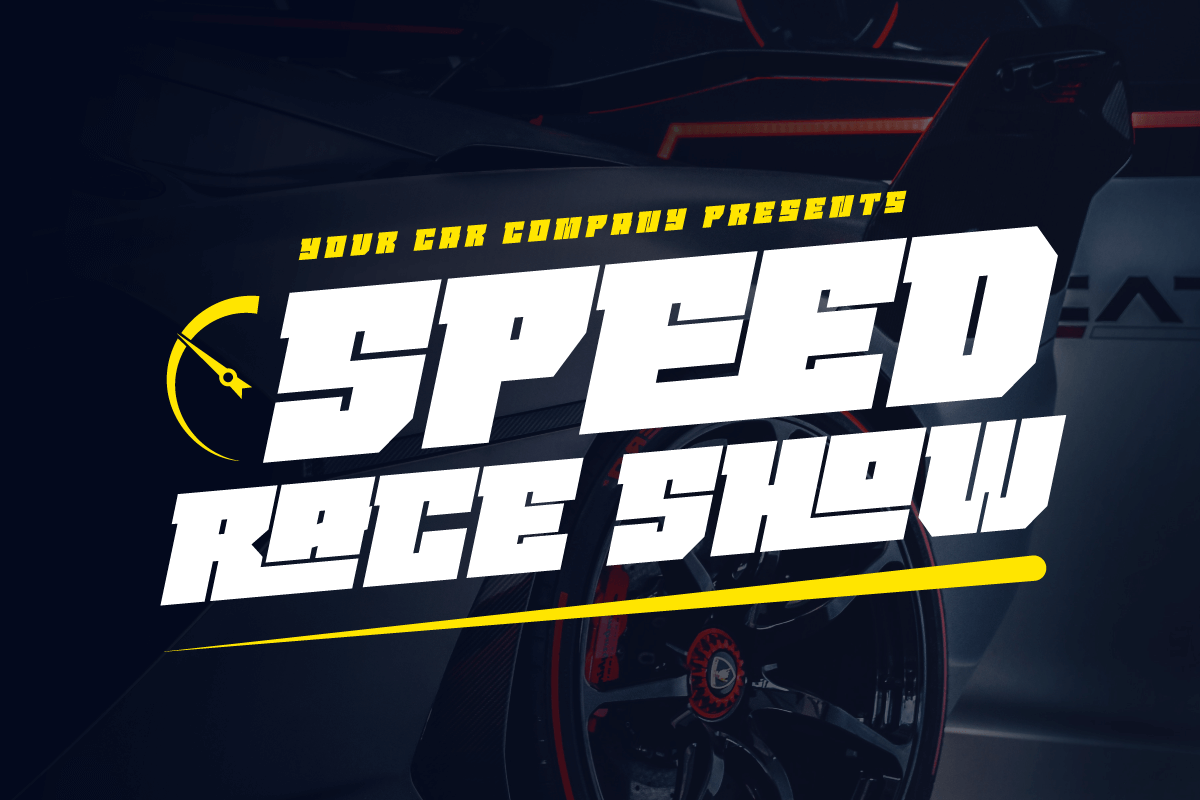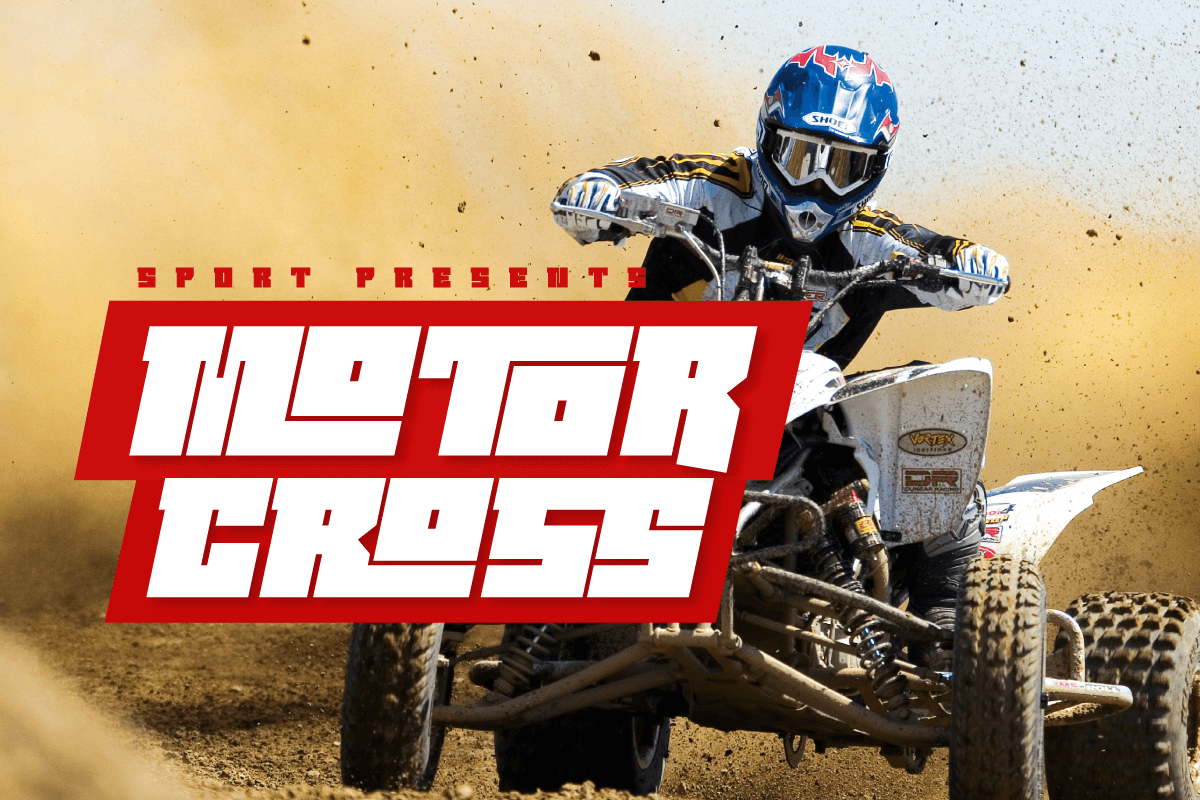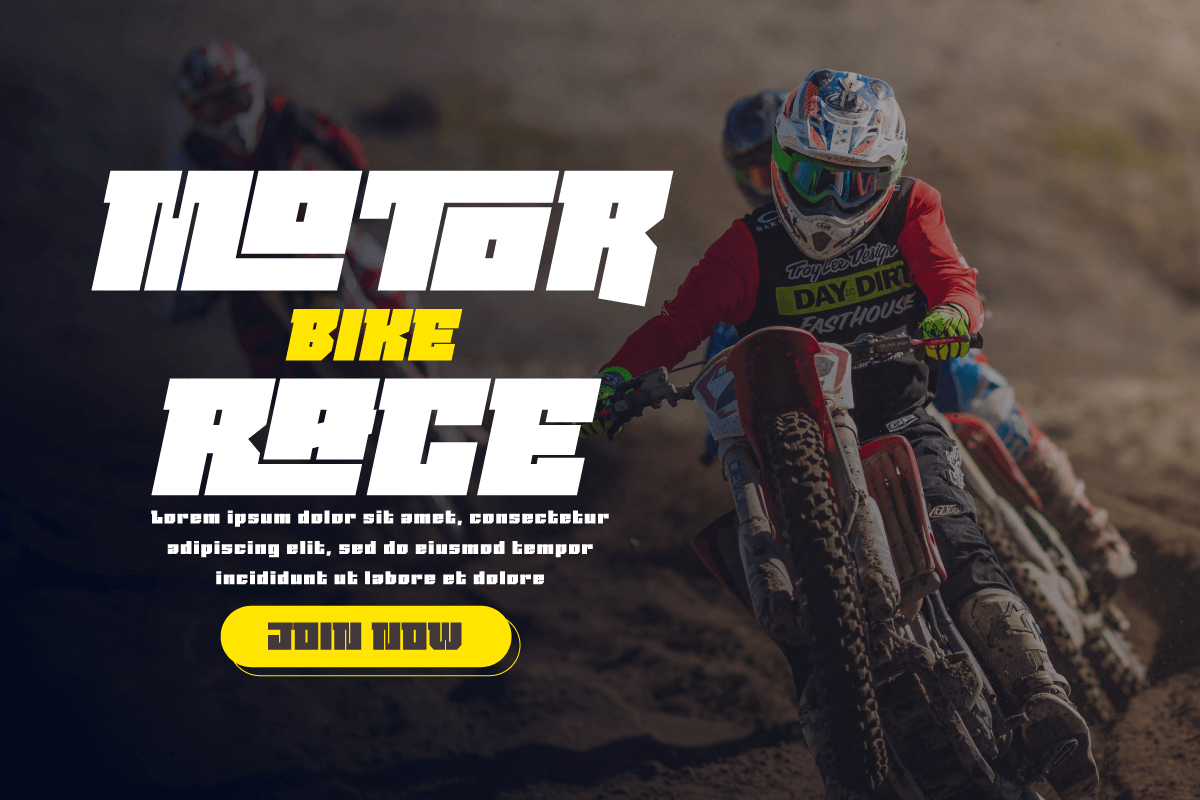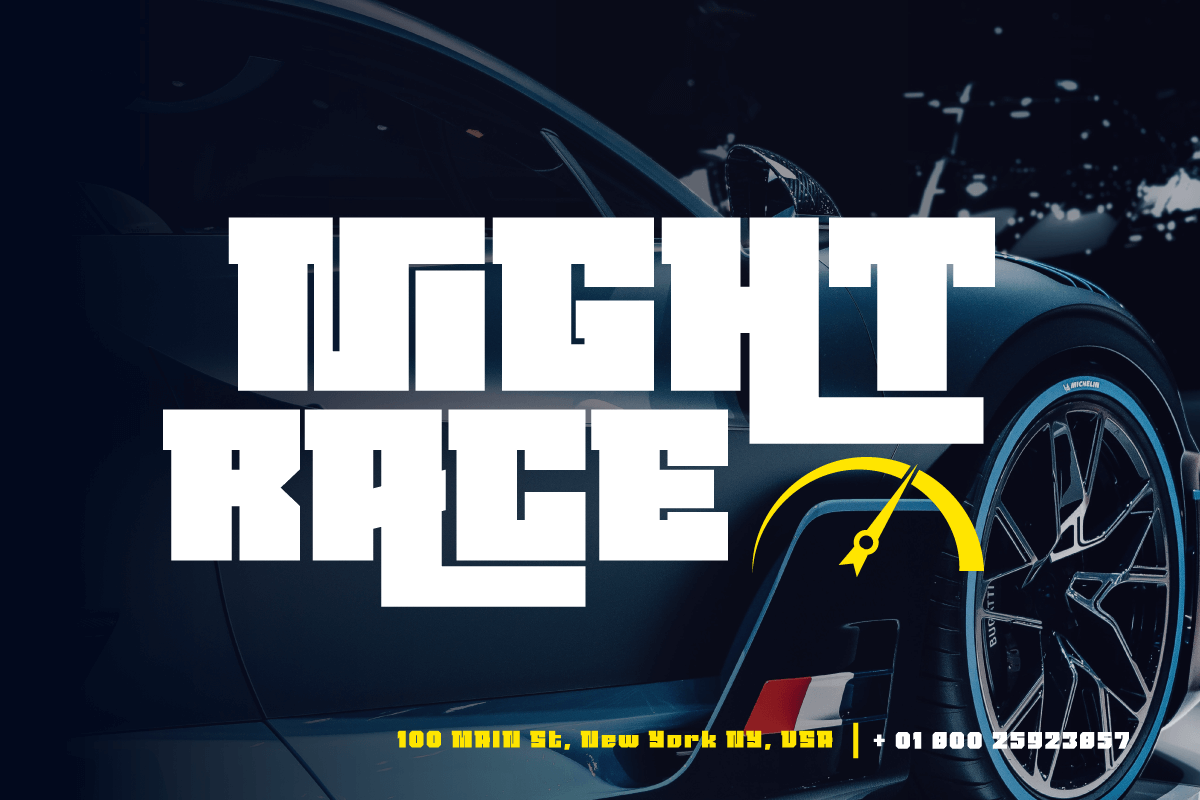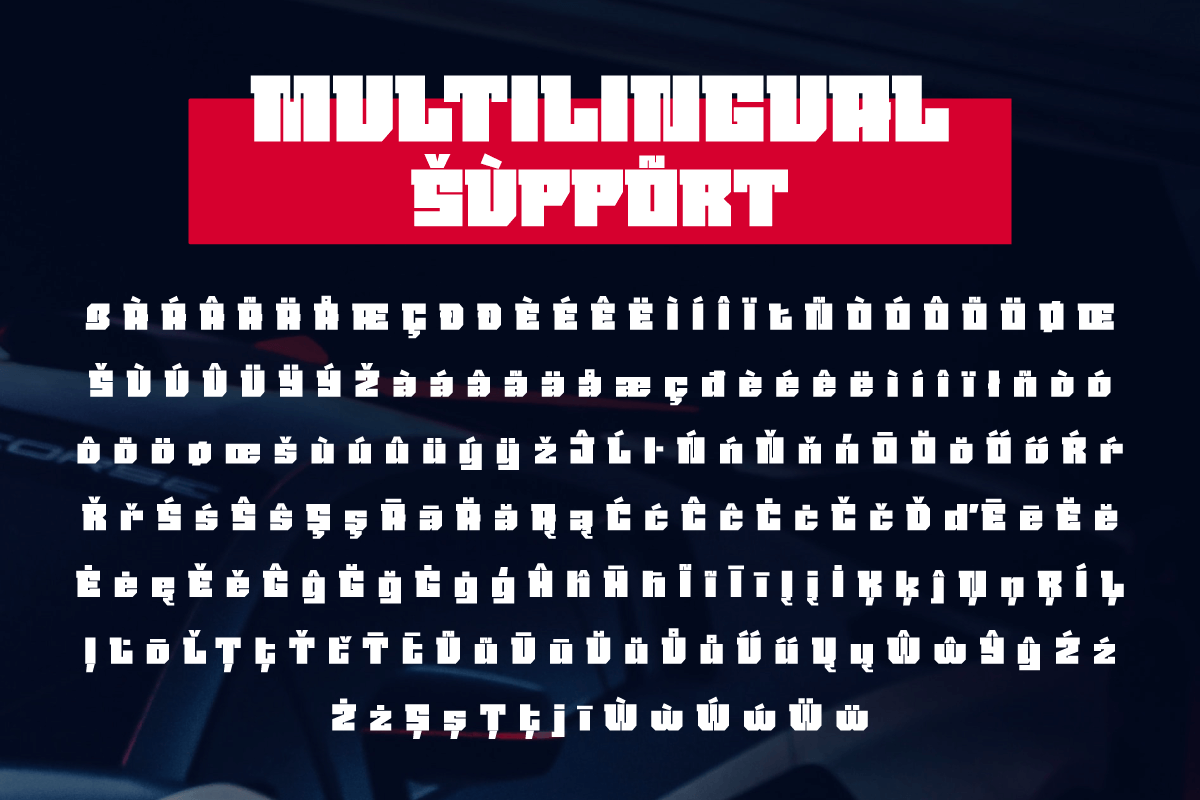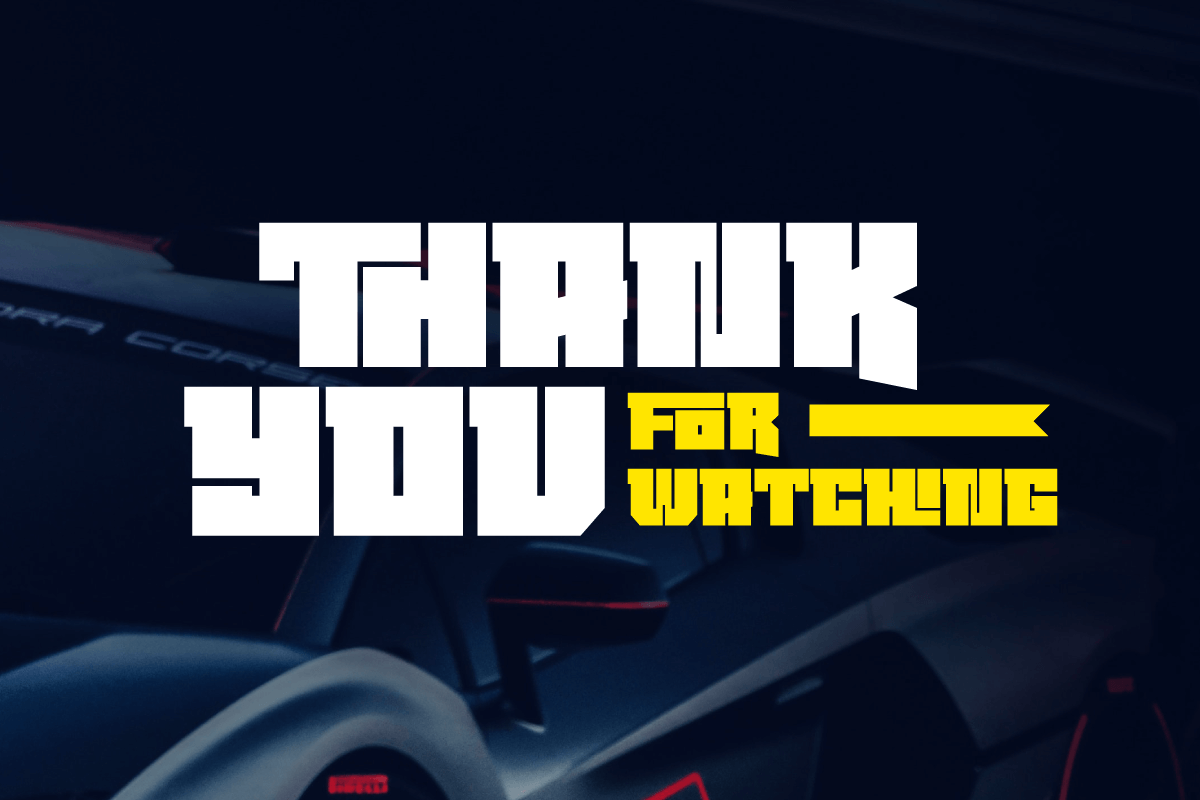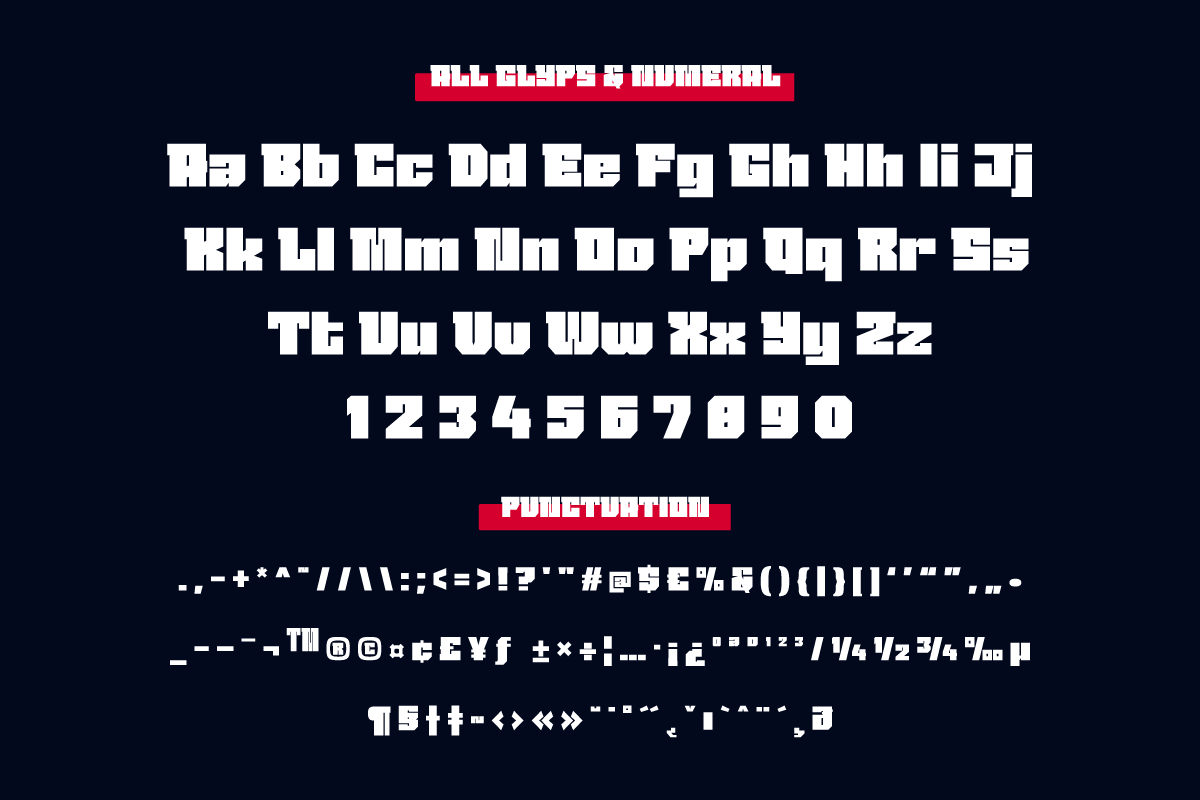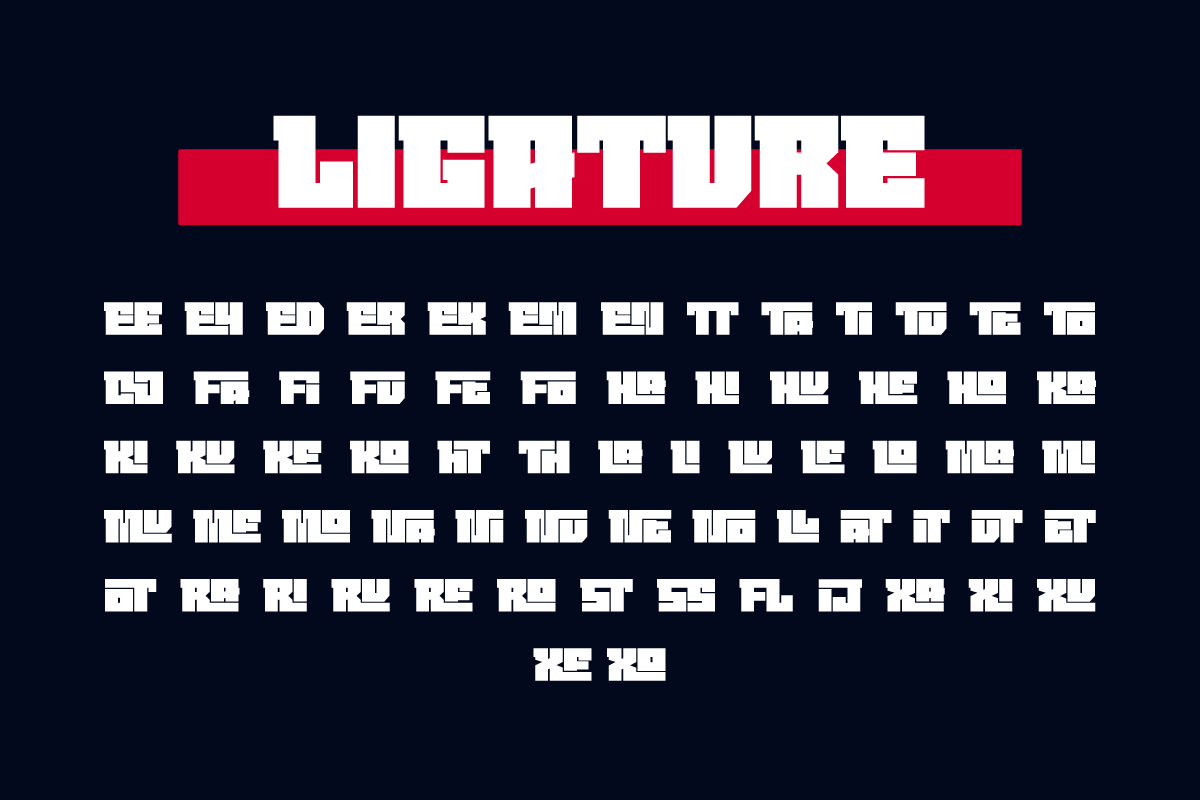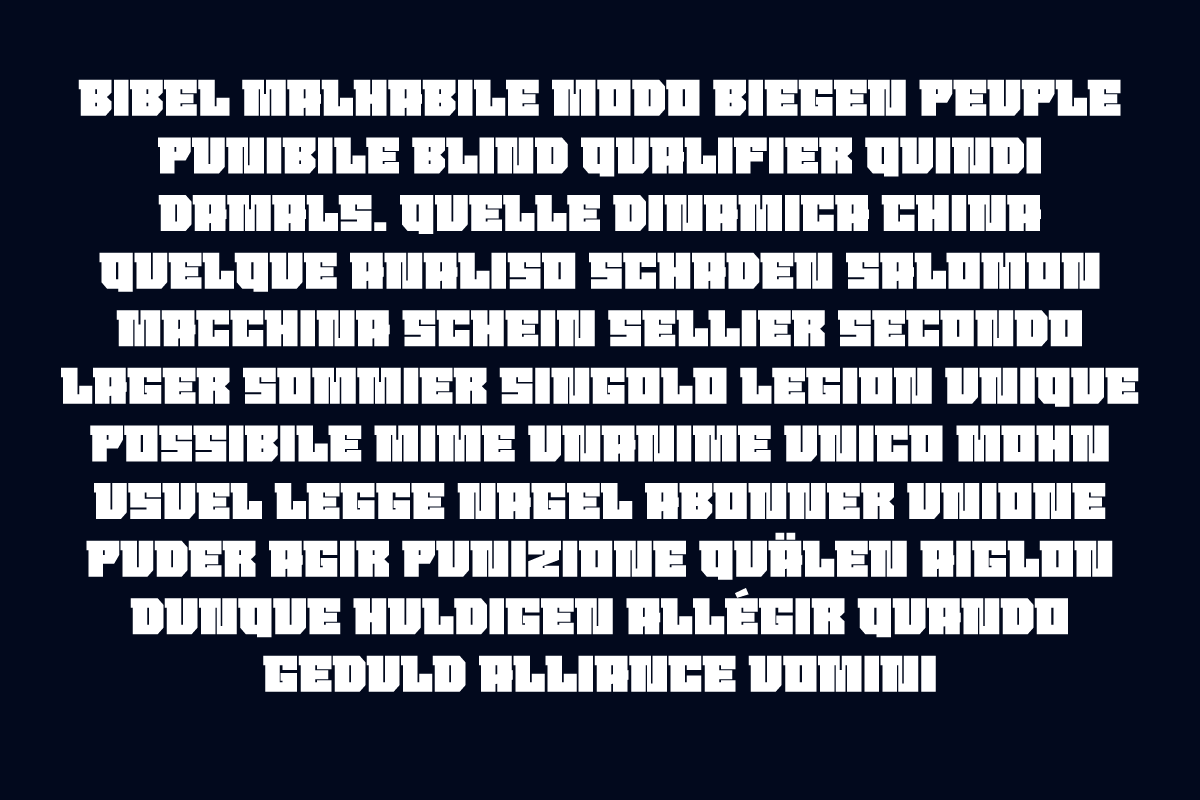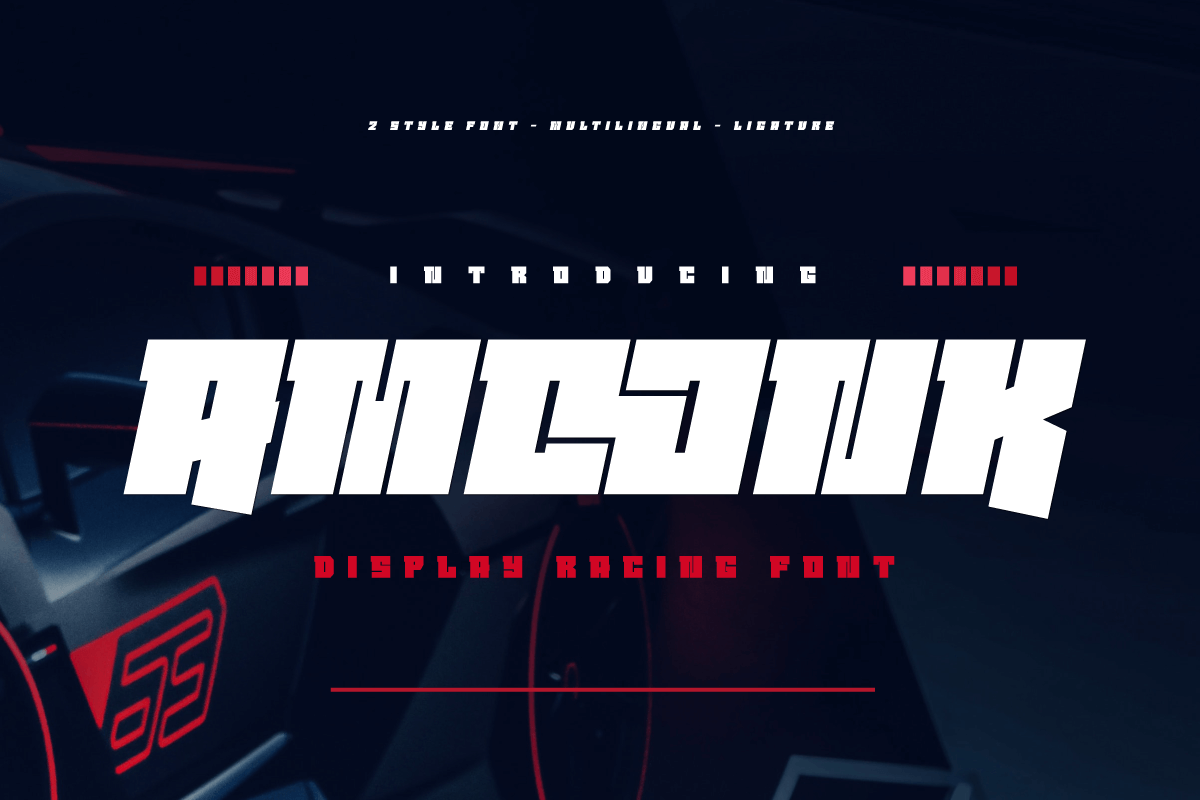
AMOONK – Sport Racing Font
The Amoonk Racing Font is a stylish font designed with attention to detail for each letter to give your project an authoritative, bold and sporty look. This font is perfect for headlines or posters, so your designs stand out from the crowd. start using this font to complete your project
- Ligature, Alternate